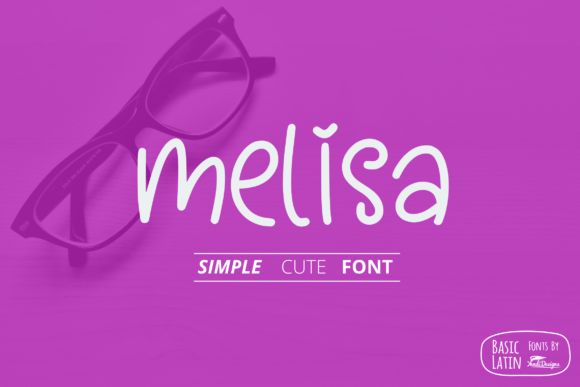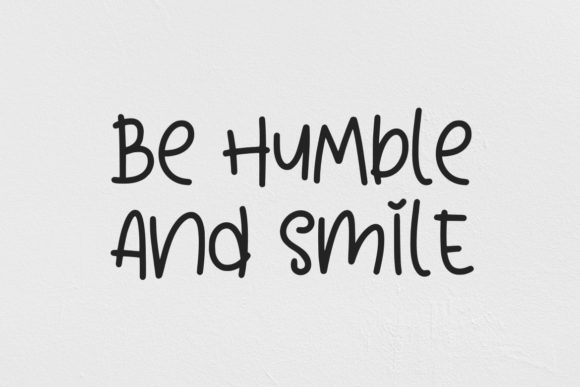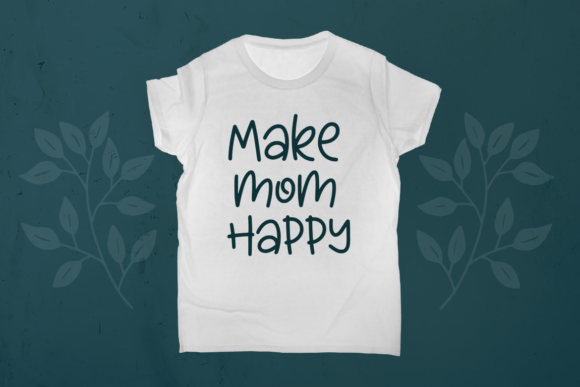
Melisa Font
About Melisa Font
Melisa is a cute and friendly sans serif font, which can be used in a variety of applications such as logos, t-shirts and mug designs and much more.
Give your next project a playful look with this lovely font.